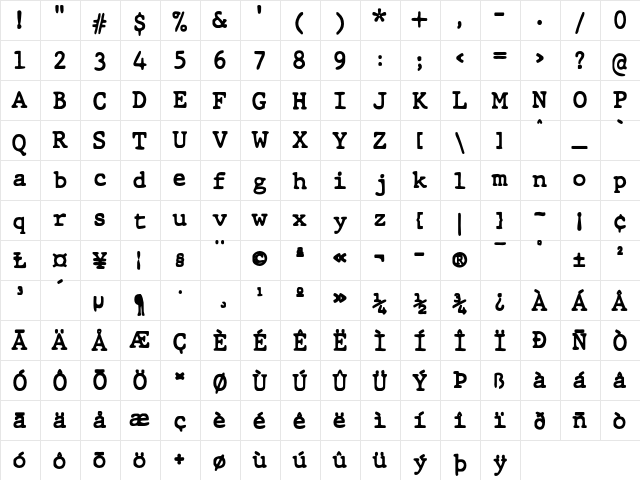
JMH Typewriter dry Bold
Design Context for JMH Typewriter dry Typeface
JMH Typewriter dry brings the precise, column-aligned rhythm of monospaced typography to designs that value technical clarity and systematic order. The heavy weight commands attention and anchors typographic hierarchies.
A natural fit for code editors, technical documentation, developer-focused branding, and terminal-inspired UI.